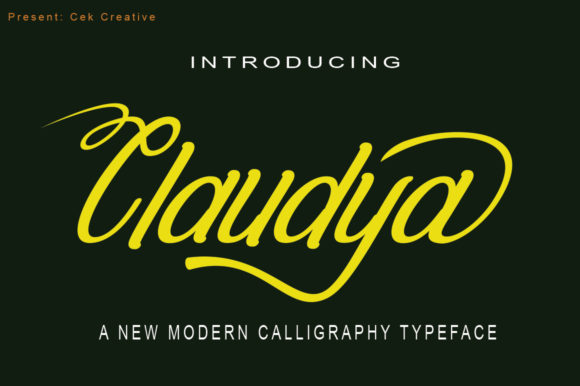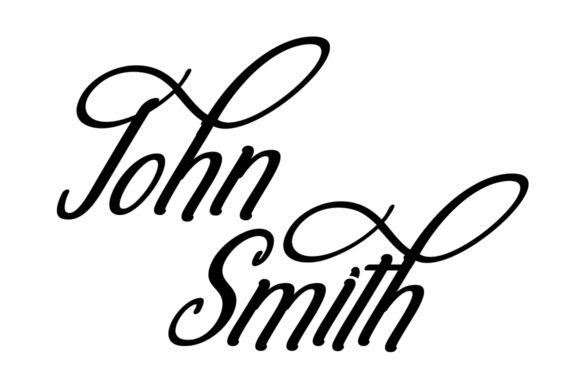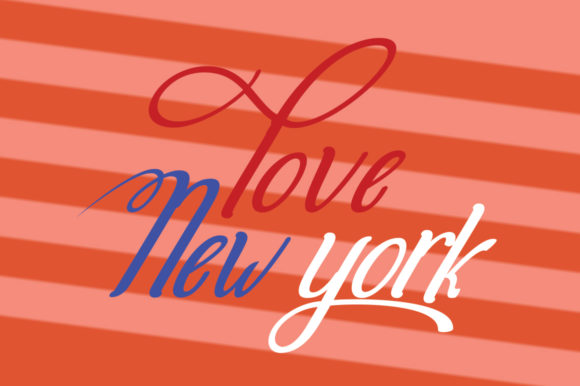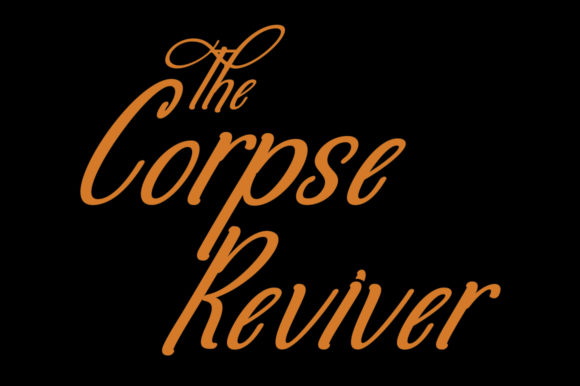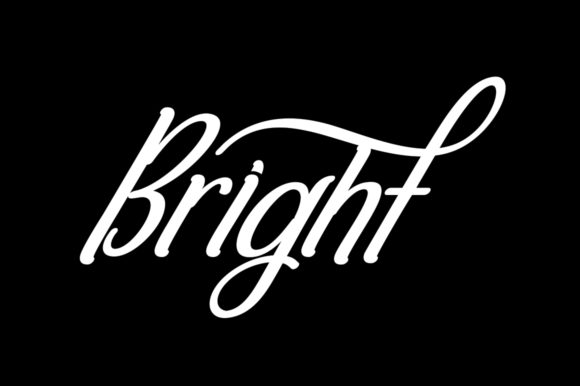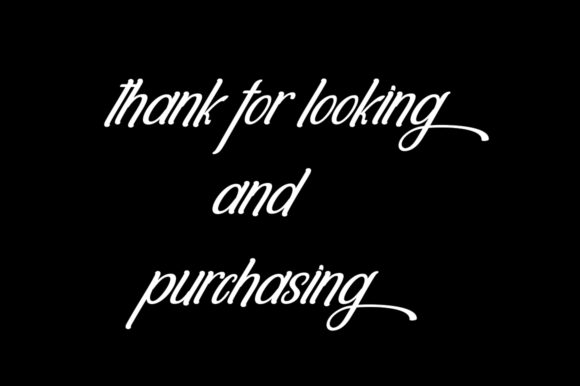
Claudya Font
About Claudya Font
Claudya is a sweet and charming script font that will add an elegant flavor to any creative project. Get inspired by its sophisticated feel!